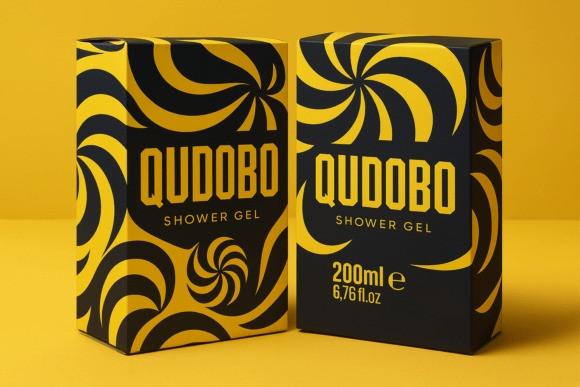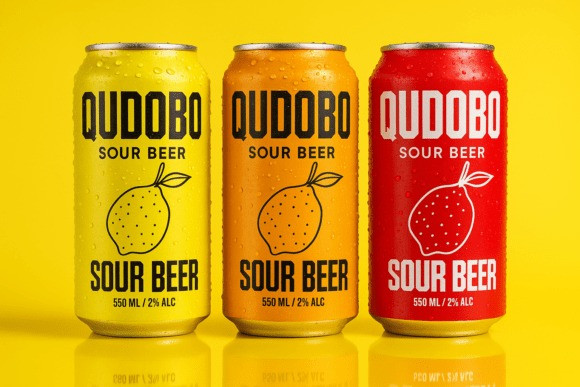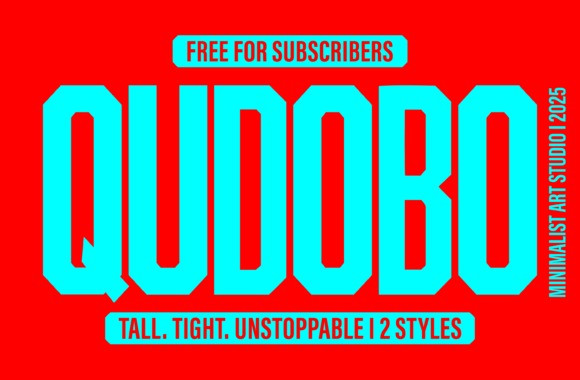
QUDOBO FONT
Qudobo Font is a towering sans serif font engineered for designs that demand instant attention. With its ultra-tall proportions, razor-sharp edges, and precision geometry, this typeface delivers a modern, powerful aesthetic ideal for branding, posters, sports graphics, packaging, digital headlines, and futuristic layouts.
Whether you’re crafting high-energy visuals or minimalist designs with authority, QUDOBO injects confidence, impact, and personality into every letter. Its extended vertical structure creates a striking rhythm on the page, while the tightened spacing keeps your compositions clean and visually magnetic.
Perfect for designers who want a bold, iconic look, QUDOBO comes with 2 dynamic styles that give you full control over intensity and tone. It’s the kind of font that transforms ordinary layouts into unforgettable visuals.